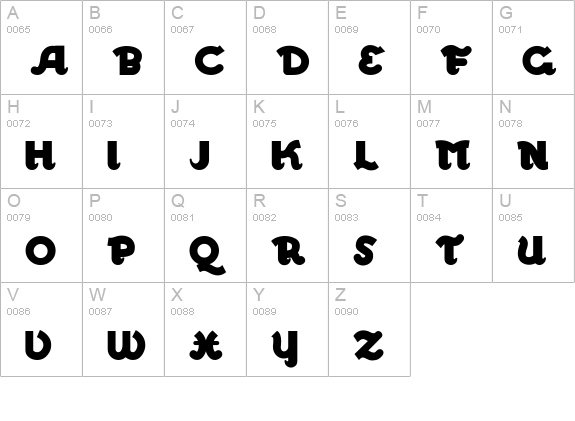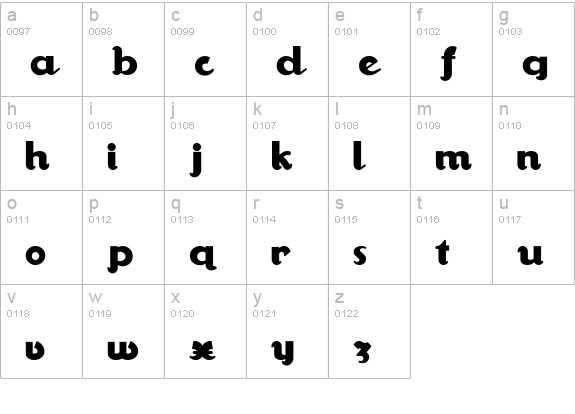
WalrusGumbo Font Details
Introducing the captivating WalrusGumbo font, a true masterpiece of typography that will delight and inspire designers and creatives alike. With its unique blend of modernity and vintage charm, this font is the perfect choice for projects that require a touch of nostalgia combined with a contemporary edge. WalrusGumbo is a free font that effortlessly captures attention with its bold and expressive letterforms. Its sturdy and confident strokes are carefully crafted to make a lasting impression, whether in headlines, logos, posters, or social media graphics. This versatile font is equally well-suited for both print and digital projects, ensuring that your message will shine across various mediums. One of the most remarkable features of WalrusGumbo is its ability to evoke a sense of adventure and whimsy. Each character is meticulously designed, with playful curves and unexpected angles that add a touch of personality to any design. This font truly stands out from the crowd, effortlessly drawing the eye and creating a memorable visual experience. And the best part? WalrusGumbo is freely available to download at FontsMarket.com. This means that you can bring your creative visions to life without any cost constraints, allowing you to experiment and push the boundaries of design without hesitation. With this font in your arsenal, you can unleash your creativity and elevate your projects to new heights. So why wait? Embrace the charm and versatility of WalrusGumbo today, and discover the endless possibilities it holds for your designs. Whether you're a seasoned professional or just starting out on your creative journey, this font is sure to become an invaluable asset in your toolkit. Download it for free at FontsMarket.com and let your imagination run wild.